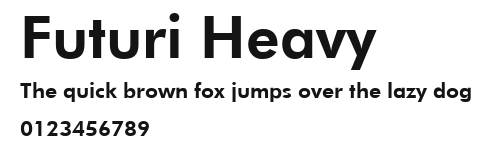
Futuri Heavy Preview
• Font Name: Futuri Heavy
• Full Font Name: Futuri Heavy
About Futuri Heavy.ttf
Futuri Heavy.ttf is a modern, elegant sans-serif font designed for ultimate readability and visual harmony. Perfect for branding, headlines, web design, and print materials.